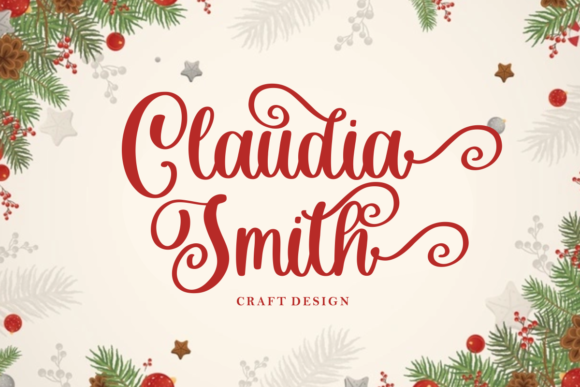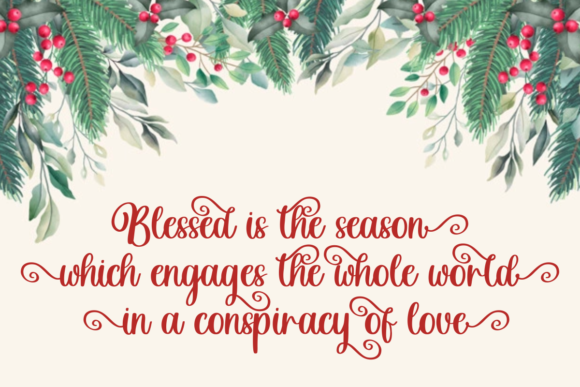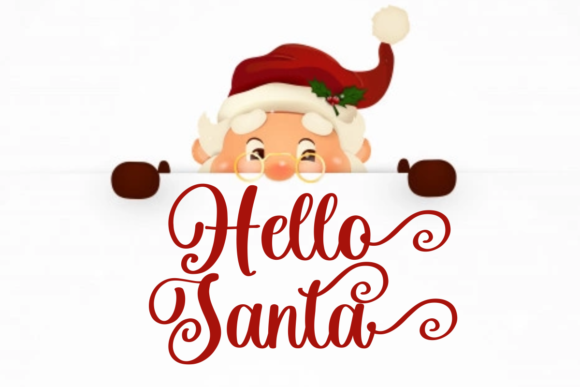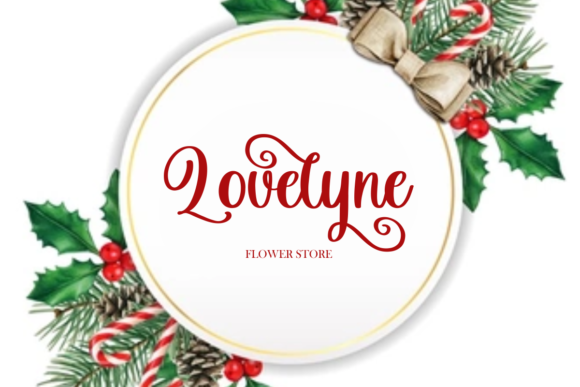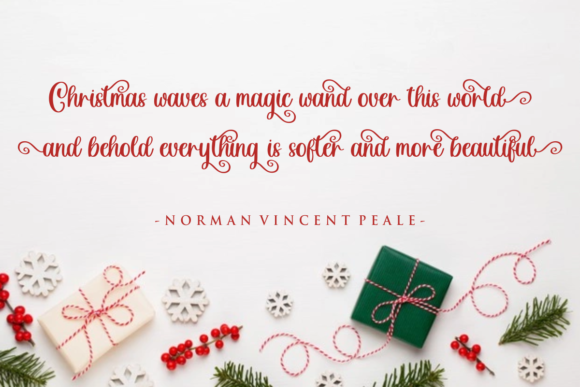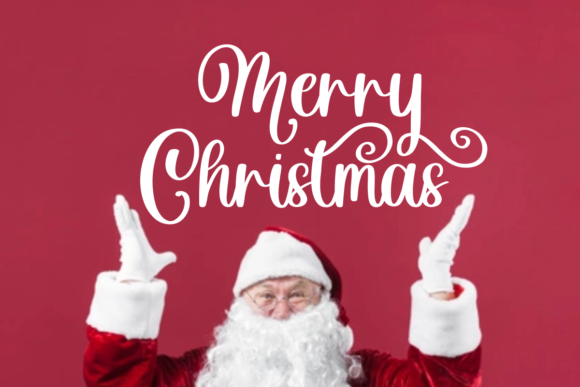
Unwrapping the Magic of Christmas Story Font
As I sit by the window, surrounded by twinkling lights and the soft glow of candles, I feel the creative spark within me ignite. It’s moments like these that I crave a font that captures the essence of the holiday season – something that whispers ‘joy’ and ‘love’ with every stroke. That’s where the enchanting Christmas Story Font comes in – a delightful, handwritten font that embodies the warmth and romance of the season.
This lovely font is perfect for crafting heartfelt holiday greeting cards, gift tags, and any project that requires a touch of elegance and whimsy. With its PUA encoding, designers can easily access the intricate swashes and glyphs that make Christmas Story Font truly special.
Whether you’re a seasoned designer or a holiday enthusiast, this font is sure to add a personal touch to your festive creations. So why not unwrap the magic of Christmas Story Font and let its beauty shine in your holiday projects this year?
Key Features of Christmas Story Font
- Font Family: Christmas Story is a display font designed to evoke the nostalgia and magic of the holiday season.
- Size: The font family includes a range of weights, from Thin to Heavy, allowing for flexibility in design and typography.
- Unique Characteristics: The font features intricate, hand-drawn details and ornaments, making it perfect for holiday-themed designs, greeting cards, and packaging.
- Characters: Includes a comprehensive set of characters, including uppercase and lowercase letters, numbers, and punctuation marks, as well as holiday-specific symbols and ornaments.
Christmas Story Font Review
As a designer, I’ve had the chance to work with the Christmas Story Font, and I must say, it’s a unique and charming addition to any holiday-themed project. ✨ Here are some things that work well:
- Whimsical feel: The font’s playful, handwritten style immediately evokes the magic of the holiday season.
- Customization options: The font comes with various ornaments and decorations that can be used to create a cohesive look.
- Font variations: The font offers different styles and weights, making it easy to find the perfect match for your design.
- Readability: The font’s whimsical style can sometimes make it difficult to read, especially at smaller font sizes.
- Limited compatibility: The font may not be compatible with all operating systems or software, which can be a hassle.
- Lack of flexibility: The font’s design is quite specific to holiday themes, which may limit its use in other contexts.
Overall, the Christmas Story Font is a great addition to any holiday-themed project, but it may not be the best choice for every design need. With its unique style and customization options, it’s perfect for creating a cohesive and festive look, but its limitations should be carefully considered before making a final decision.
The Christmas Story Font is perfect for:
- Creating festive holiday invitations and cards.
- Designing holiday-themed social media graphics and ads.
- Adding a touch of festive cheer to your website or blog.
- Creating custom holiday gift tags and labels.